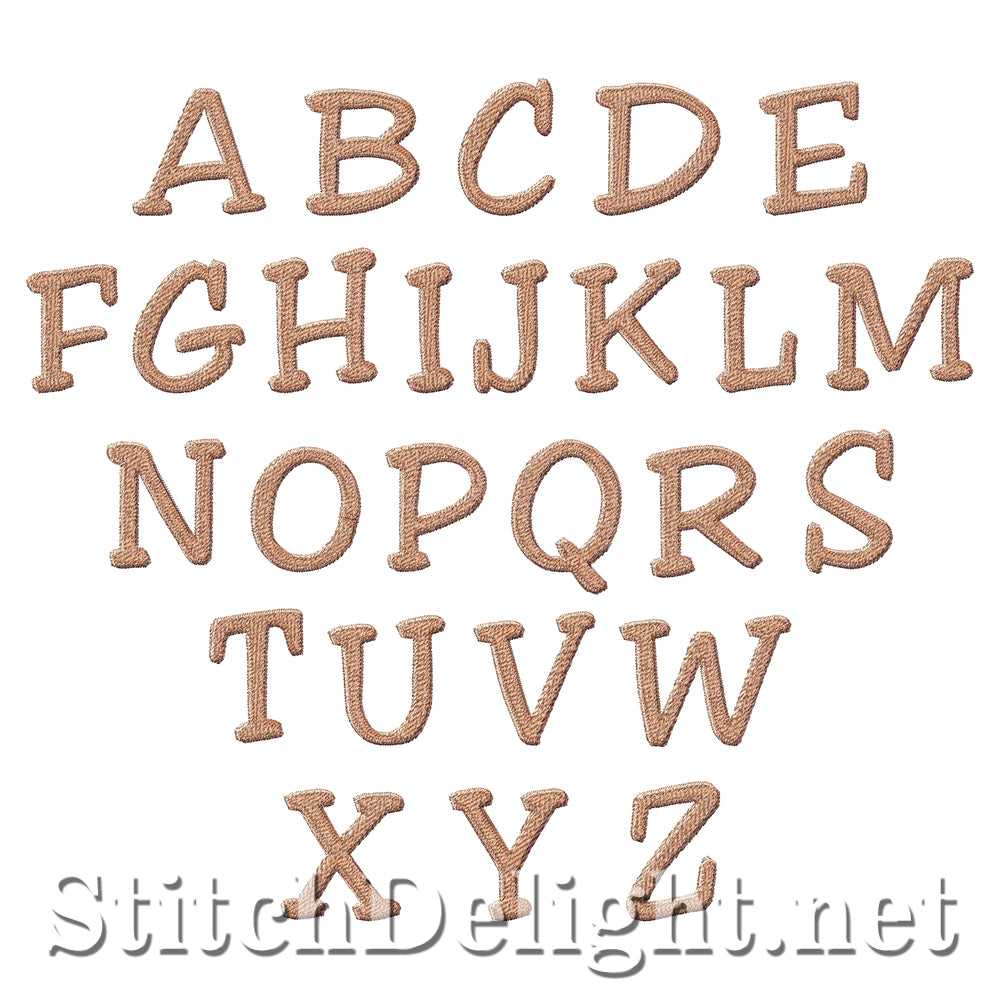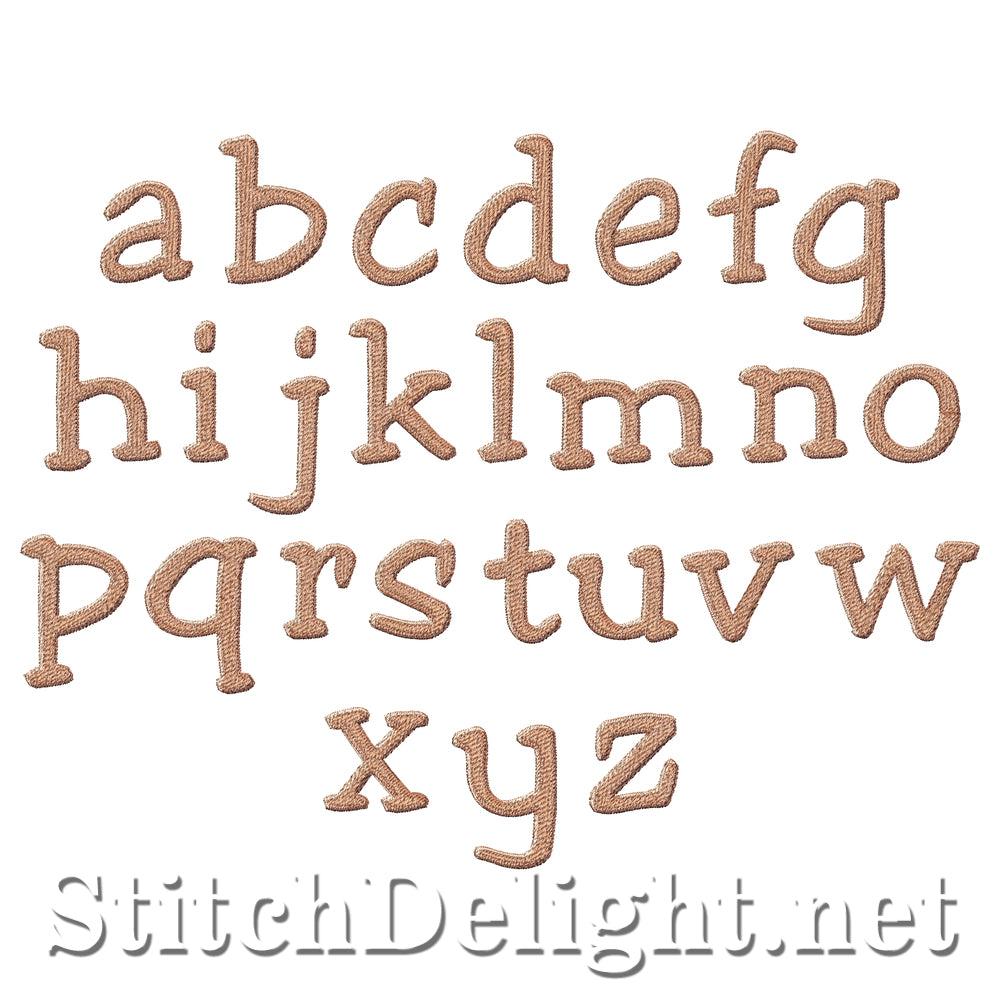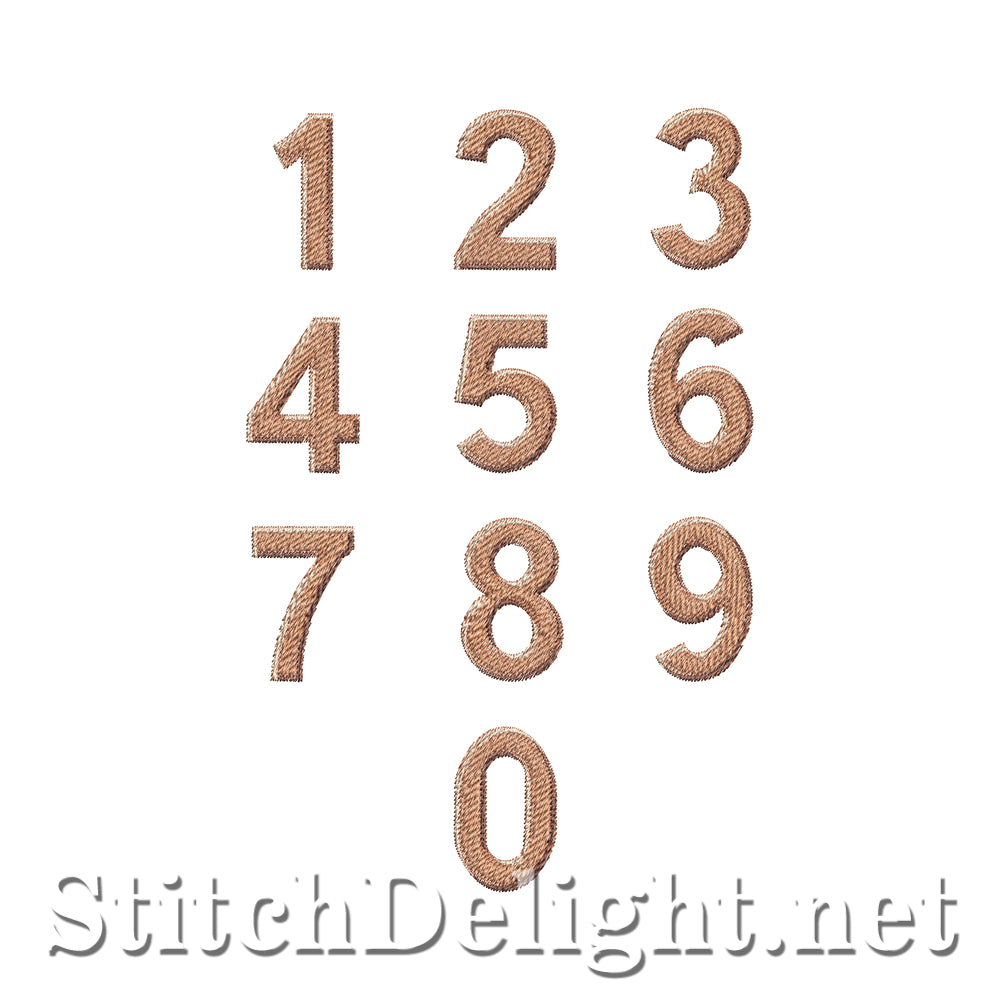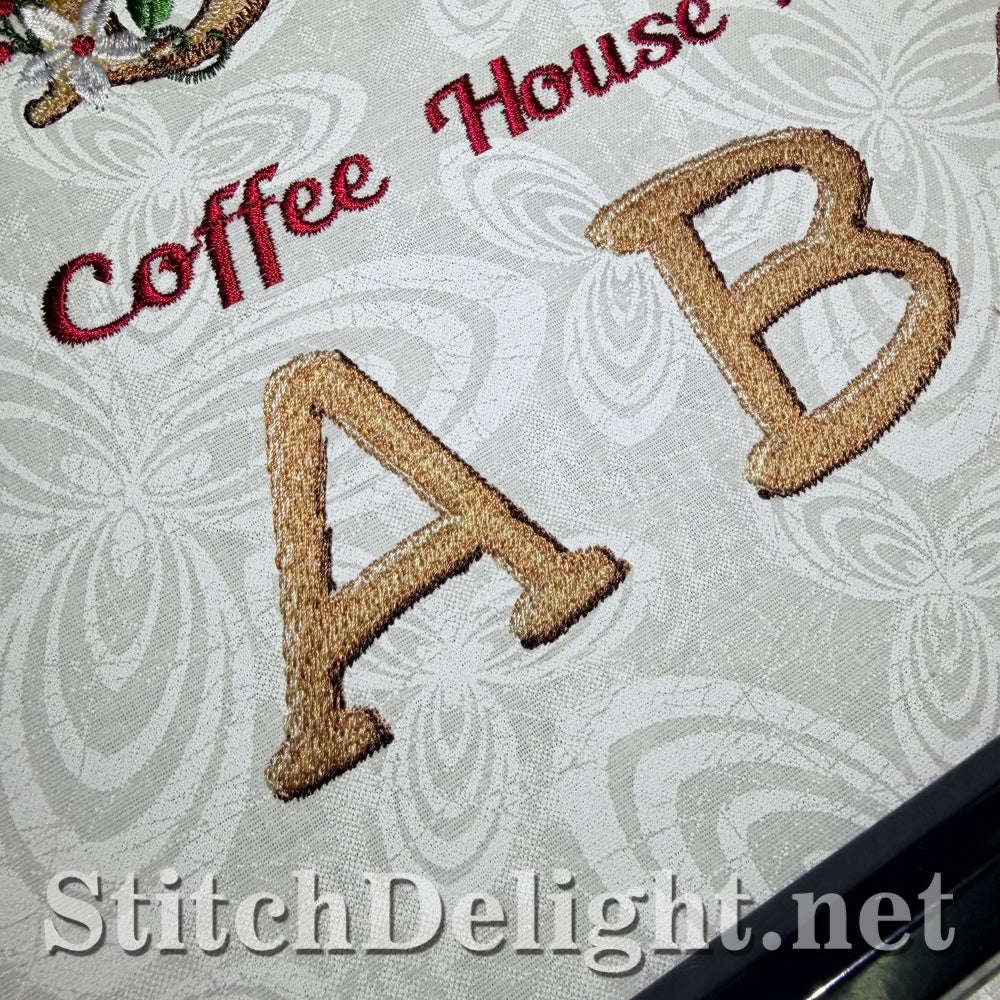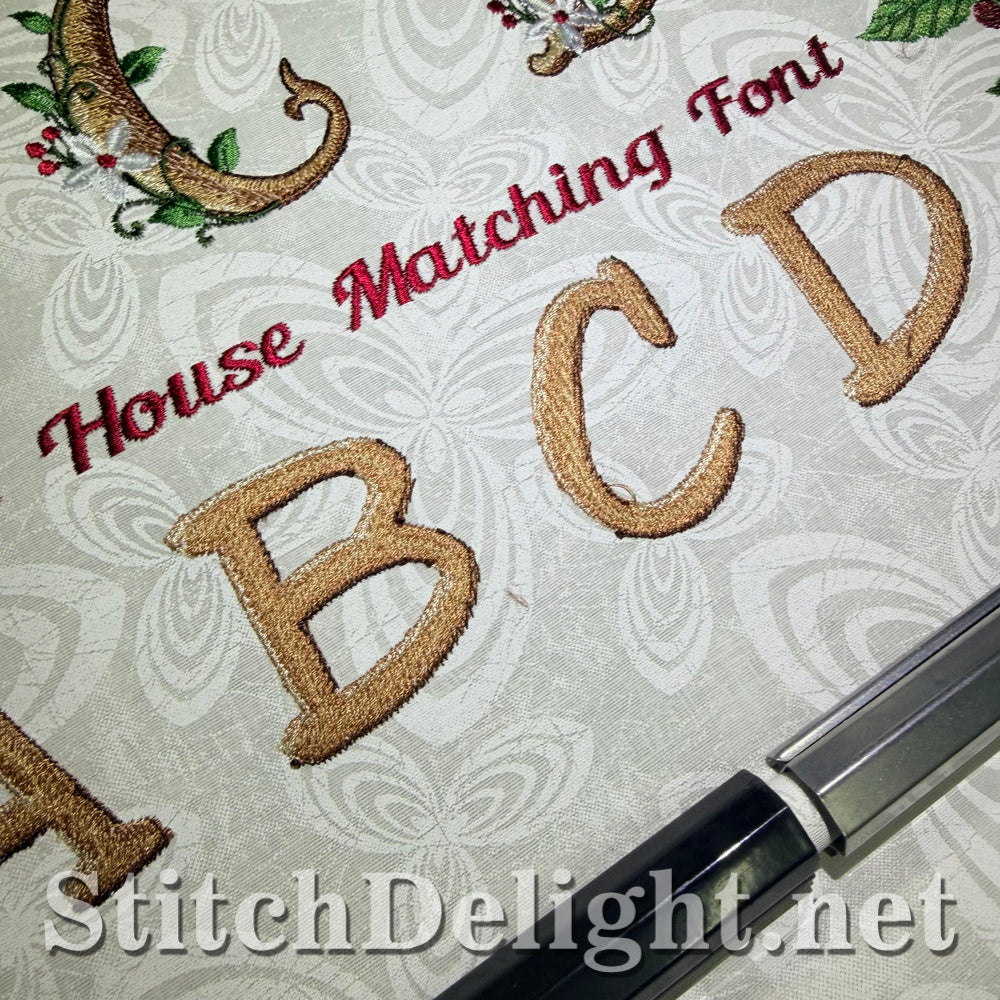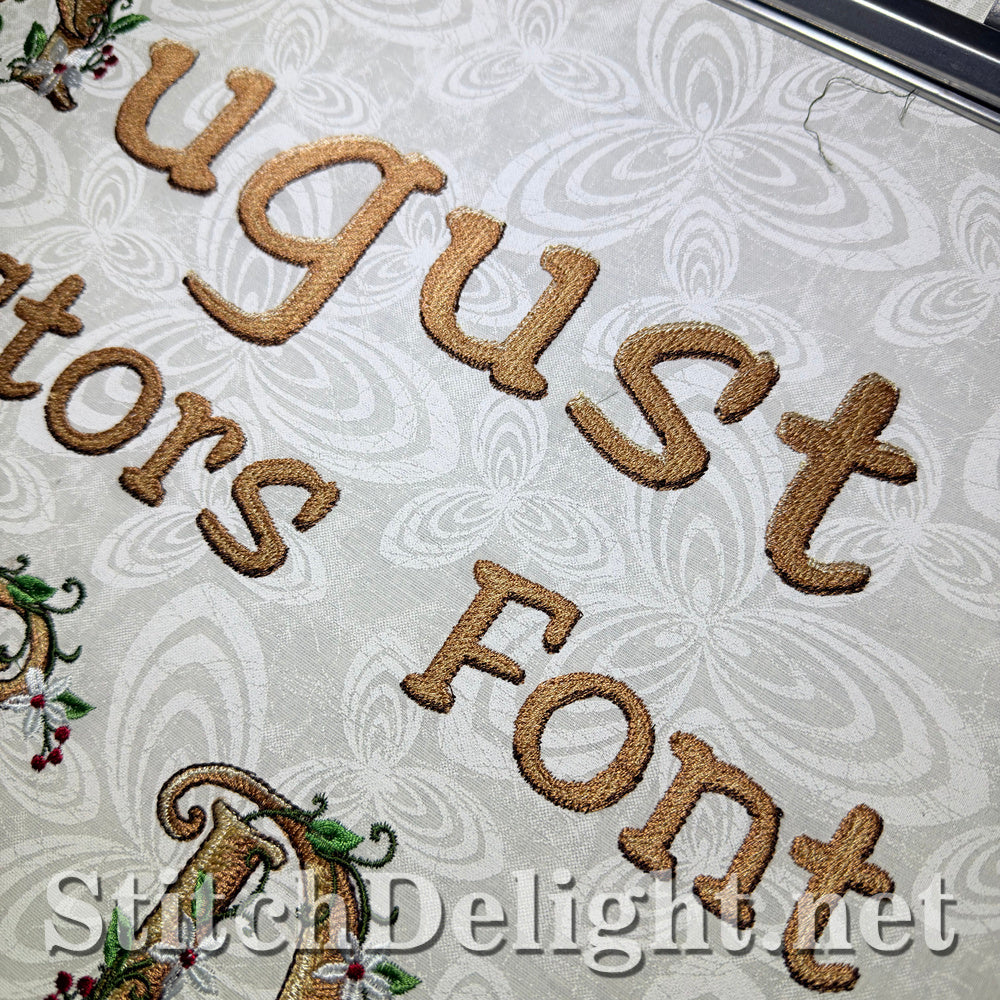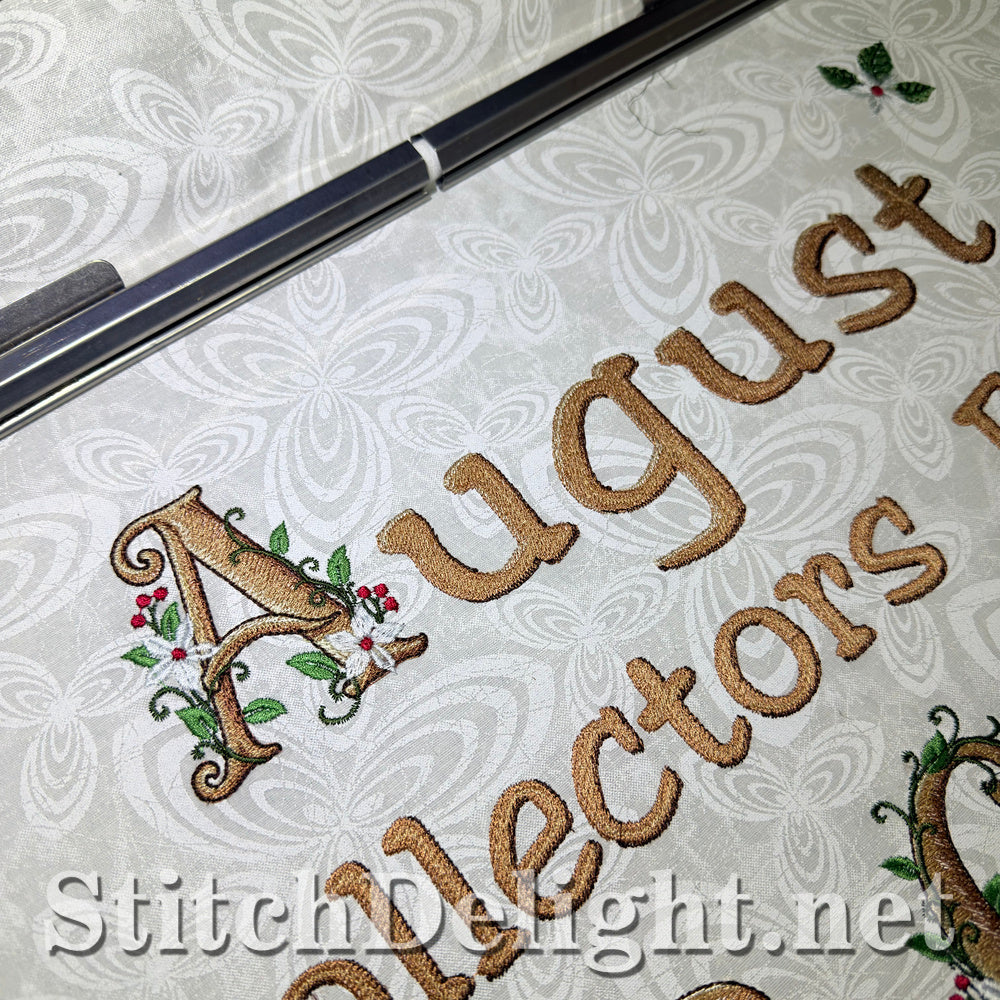
Create beautiful personalized embroidery with the SDS3446 Coffee Font by Stitch Delight. This classic embroidered serif alphabet has a warm, handcrafted appearance inspired by rustic coffeehouse charm, making it ideal for adding names, monograms, labels, and custom wording to a wide variety of embroidery projects.
Coffee Font has been specially designed to complement our collectors SDS3445 Coffee House Font. Use it alongside the decorative monogram letters to create beautifully coordinated names, monograms, and personalized embroidery projects with a classic coffeehouse-inspired style.
The font includes a complete uppercase alphabet (A–Z), lowercase alphabet (a–z), and numbers (0–9), giving you everything you need to personalize towels, bags, aprons, table linens, quilt labels, home décor, gifts, garments, and more. Each character stitches at an average height of approximately 65 mm (2.56"), fitting comfortably within a standard 4x4 embroidery hoop.